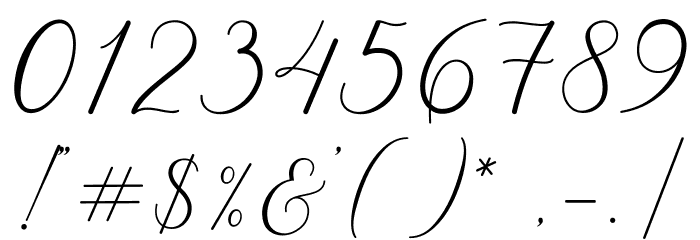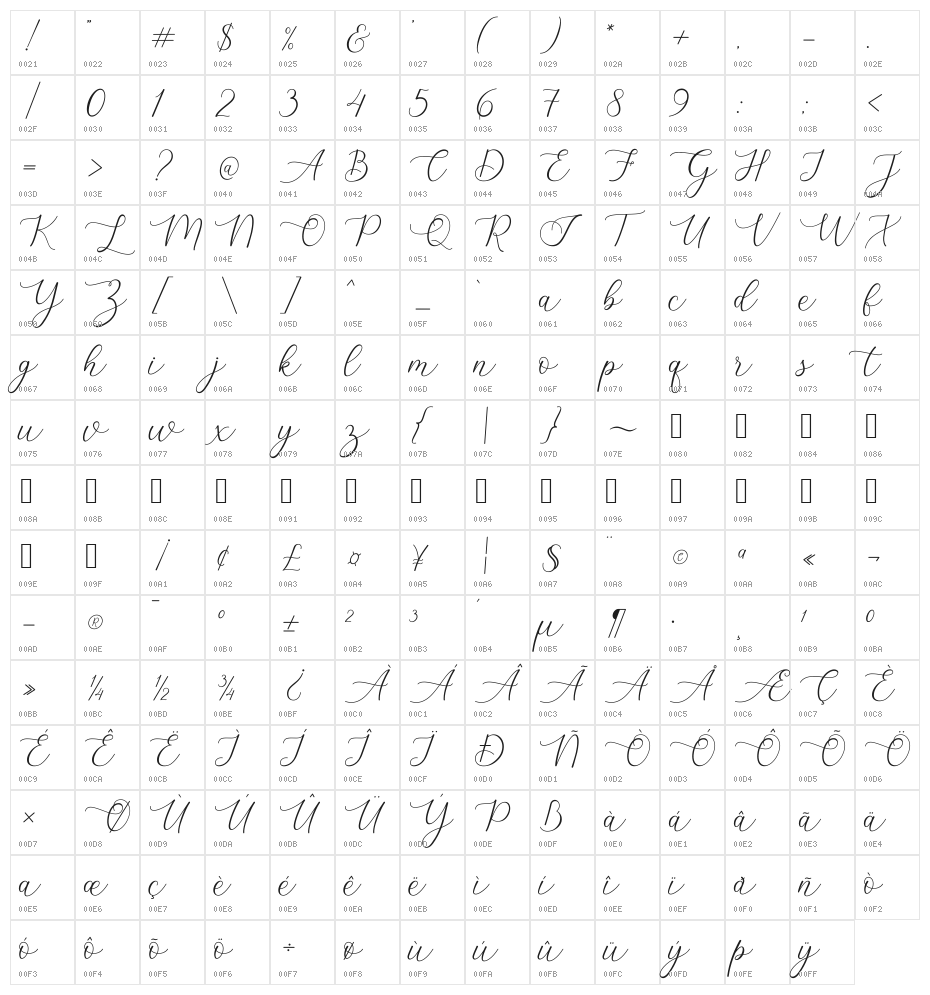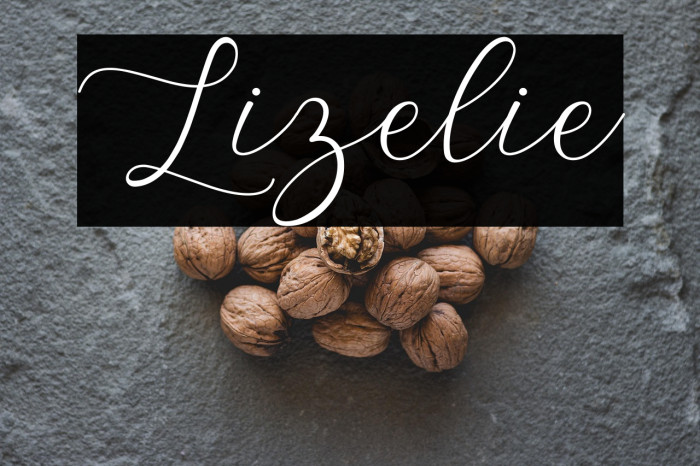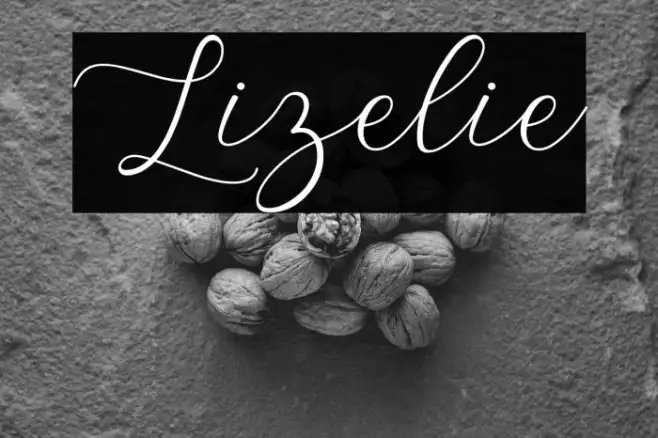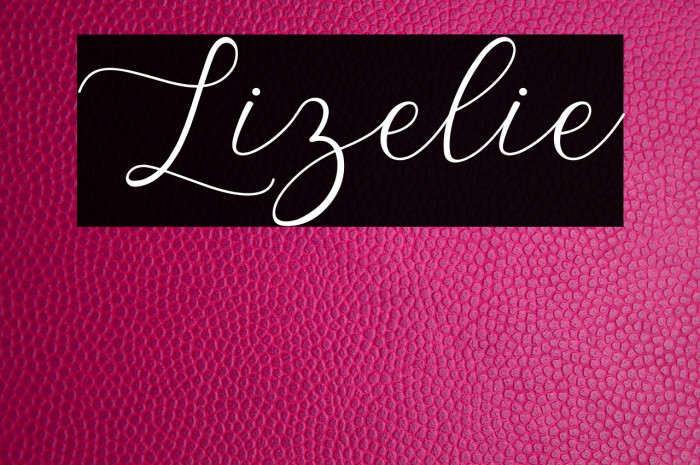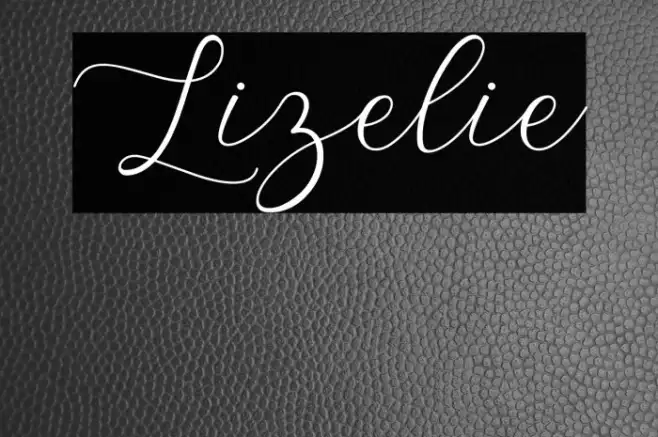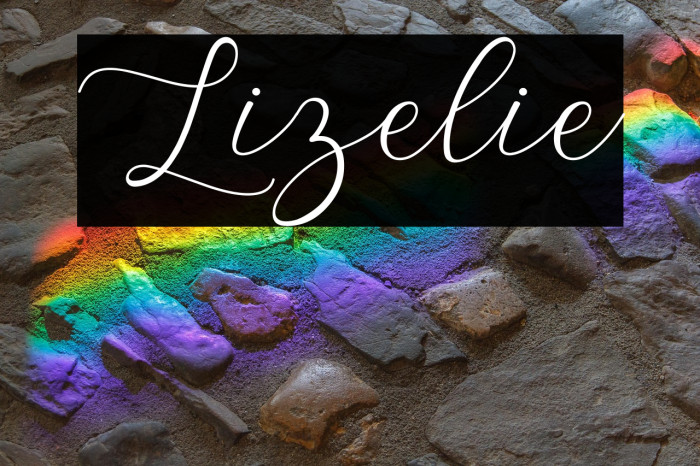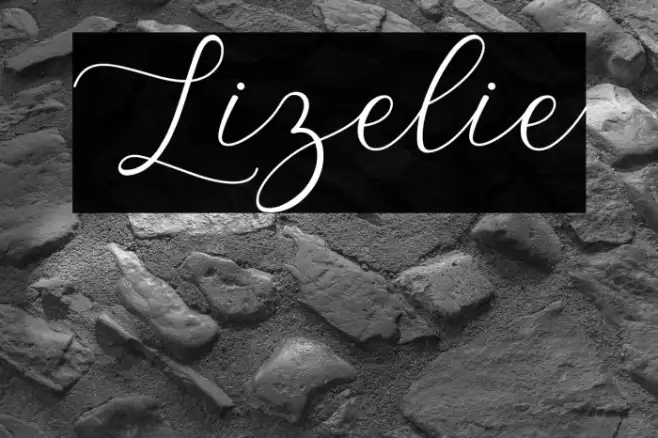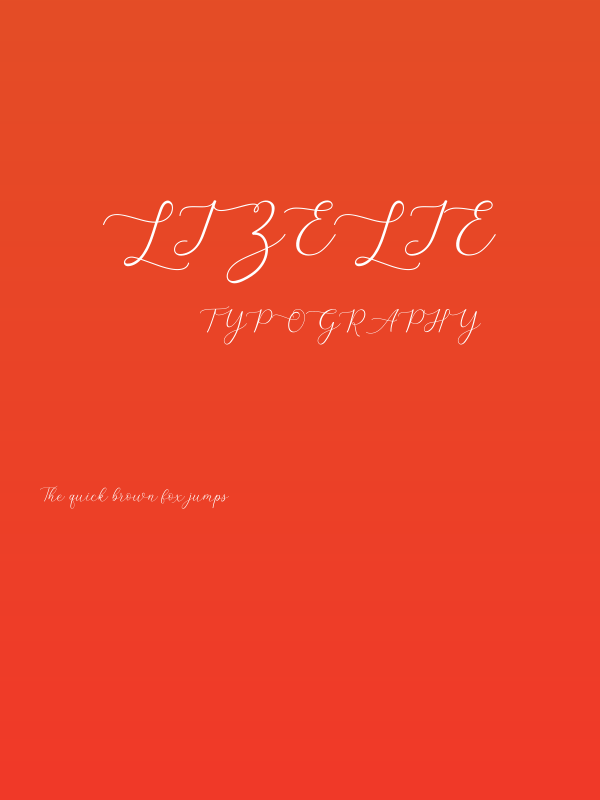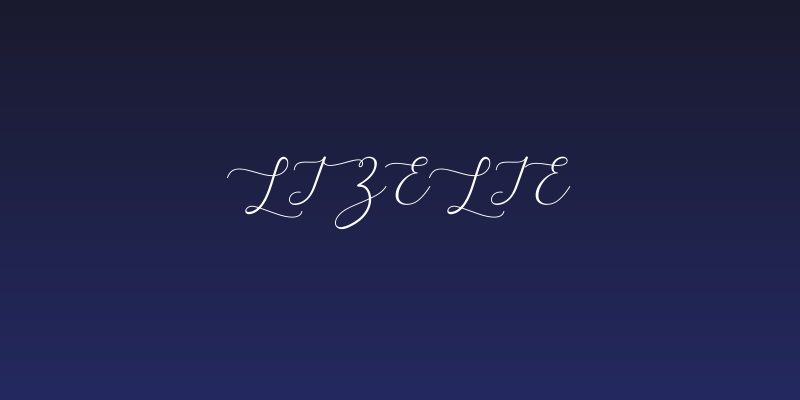
Lizelie Font
Lizelie Description
This elegant script font features fluid, interconnected strokes that evoke a sense of sophistication and grace. The uppercase letters are distinct with their sweeping curves and delicate lines, while the lowercase letters maintain a consistent flow, enhancing readability. The numerals are stylishly crafted, complementing the overall aesthetic. Special characters are thoughtfully designed to blend seamlessly with the alphabet, making this font versatile for various applications. Its refined appearance is ideal for projects that require a touch of elegance and class.